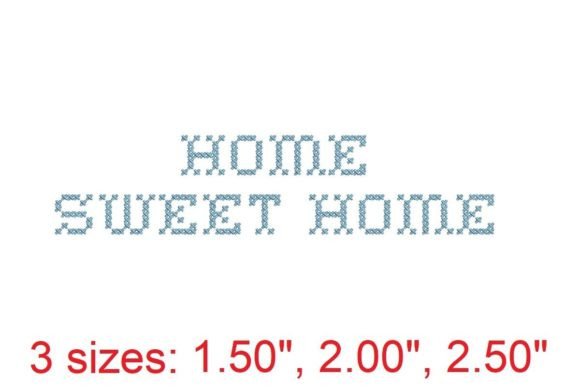
Home Sweet Home Embroidery Font
Embroidery has long been a cherished craft, blending artistry with personal expression. Whether you're a seasoned creator or just starting out, the right tools can make all the difference in bringing your visions to life. The Home Sweet Home Embroidery Font is designed to elevate your projects with its refined design and versatility. This font isn’t just about aesthetics—it’s about enhancing the quality and impact of every stitch you make.
The Home Sweet Home Embroidery Font offers a unique blend of elegance and practicality. Each letter is meticulously crafted to ensure clarity and beauty when stitched. Its clean lines and thoughtful spacing make it ideal for a wide range of applications, from personalized linens to decorative home accents. By using this font, you’re not only adding visual appeal but also creating a cohesive and professional look that resonates with your audience.
Why Choose Home Sweet Home Embroidery Font?
One of the standout features of the Home Sweet Home Embroidery Font is its precision. Every character is designed with attention to detail, ensuring that even the smallest details are clear and legible when stitched. This level of care translates into a more polished final product, which is especially important when working on custom items like monogrammed towels or embroidered pillowcases.
Additionally, the font’s compatibility with various embroidery machines makes it a versatile choice for both hobbyists and professionals. Whether you’re using a basic home machine or a high-end commercial setup, the Home Sweet Home Embroidery Font adapts seamlessly, reducing the need for additional adjustments or modifications. This compatibility ensures that your creative process remains smooth and uninterrupted.
Enhancing Creativity Through Design
The Home Sweet Home Embroidery Font encourages creativity by offering a flexible and adaptable design. Its elegant style allows for easy integration into different projects, whether you're aiming for a rustic farmhouse vibe or a modern minimalist aesthetic. This adaptability means that you can experiment with different layouts and combinations without worrying about the font’s limitations.
For example, if you're designing a set of embroidered wall hangings, the Home Sweet Home Embroidery Font can be used to create a cohesive theme across all pieces. This consistency helps in making your work more visually appealing and professionally presented, which is crucial for those looking to sell their creations or showcase their skills.
Practical Benefits for Everyday Use
Using the Home Sweet Home Embroidery Font can significantly improve the efficiency of your embroidery projects. With its well-structured design, you can save time during the planning phase, as the font’s consistent sizing and spacing reduce the need for manual adjustments. This is particularly beneficial for those who frequently create similar types of projects, such as holiday decorations or personalized gifts.
Moreover, the font’s ability to be used across multiple formats and machines means that you can easily switch between different setups without compromising the quality of your work. This flexibility is essential for creators who may need to work on various projects simultaneously or share their designs with others.
Supporting Communication and Expression
Embroidery is more than just a craft—it's a form of communication. The Home Sweet Home Embroidery Font enables you to convey messages and emotions through your work with greater clarity and impact. Whether you're creating a heartfelt message for a loved one or crafting a statement piece for a client, this font helps ensure that your message is both visible and meaningful.
For instance, if you're designing a custom quilt with a personal message, the Home Sweet Home Embroidery Font can help you express your sentiments in a way that feels both personal and professional. This dual benefit makes it an excellent choice for those who want to combine functionality with emotional resonance in their projects.
Who Can Benefit Most?
The Home Sweet Home Embroidery Font is particularly suited for individuals who value both quality and versatility in their embroidery work. Hobbyists who enjoy personalizing items for friends and family will appreciate the font’s elegant style and ease of use. Similarly, small business owners and entrepreneurs who create custom embroidery products will find that this font enhances the professionalism and appeal of their offerings.
For educators and designers who incorporate embroidery into their teaching or creative processes, the Home Sweet Home Embroidery Font provides a reliable and consistent tool that simplifies the learning curve. It’s also an excellent resource for bloggers and content creators who use embroidery as part of their storytelling or branding efforts.
Considerations and Limitations
While the Home Sweet Home Embroidery Font offers many advantages, it’s important to consider its limitations in certain contexts. For example, if you’re working on highly intricate designs that require a more stylized or decorative font, you may need to explore other options. However, for most standard embroidery projects, this font provides a balanced and effective solution.
Conclusion
The Home Sweet Home Embroidery Font is more than just a design tool—it’s a catalyst for creativity, efficiency, and personal expression. Whether you're a hobbyist looking to enhance your projects or a professional seeking to elevate your work, this font offers a reliable and elegant solution. By choosing the Home Sweet Home Embroidery Font, you’re investing in a tool that supports your goals and helps you create meaningful, beautiful embroidery that stands out.